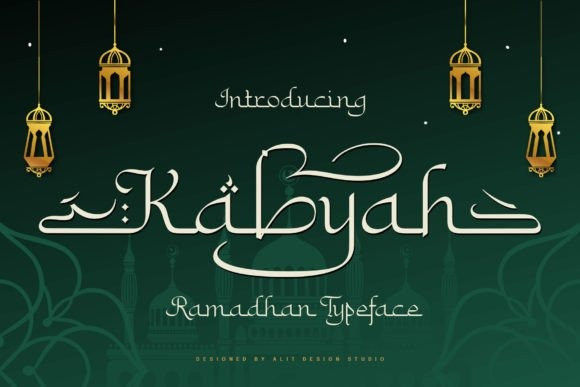
Kabyah Font
Kabyah Font. This exquisite Indian-style script font is a true work of art, with its intricate detailing and graceful curves inspired by traditional calligraphy. Kabyah brings a touch of Eastern elegance to any design project, whether it’s for branding, invitations, or editorial layouts. Its unique and striking appearance will captivate audiences and leave a lasting impression.